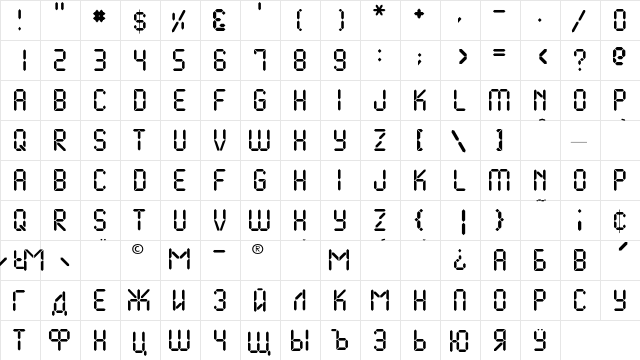
DigitalCyrillic1 Regular
Design Context for DigitalCyrillic1 Typeface
DigitalCyrillic1 has a distinctly futuristic character, with geometric precision and clean angles that feel at home in technology, gaming, and sci-fi contexts.
Pro Tip: Try DigitalCyrillic1 with generous letter-spacing in UI labels and navigation — the geometric forms benefit from room to breathe.